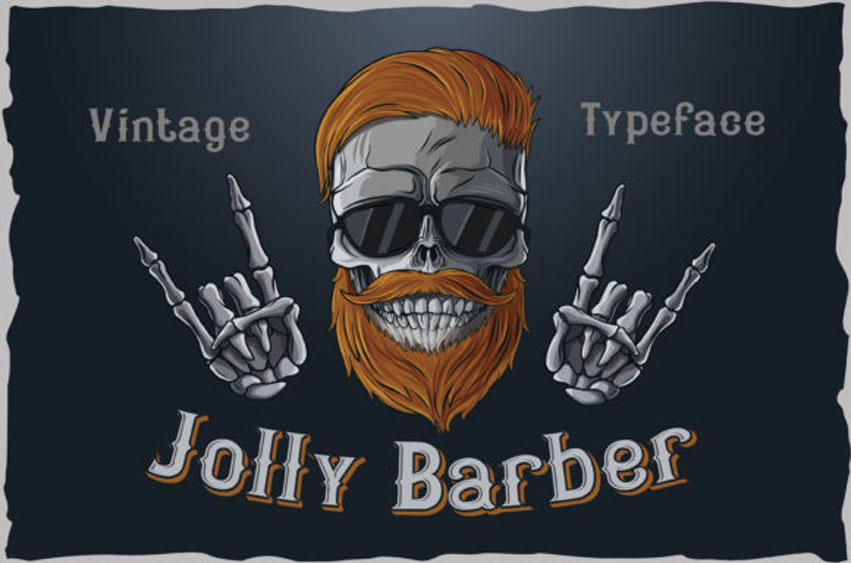
Jolly Barber Font
Jolly Barber Font is a cool and genuine blackletter font. Authentic and unique, this font will look outstanding in any context.
Have fun with this beautiful font and explore its endless variations.